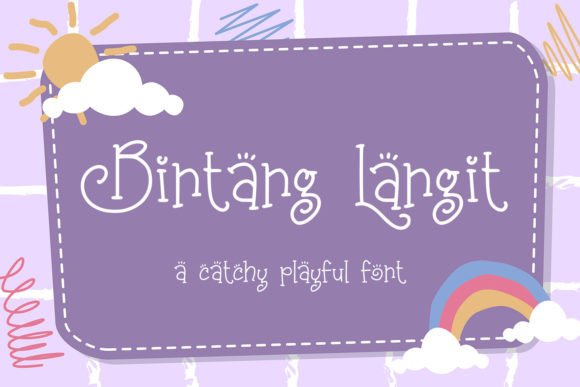
The Magical World of Bintang Langit Font
Have you ever been in the middle of a design project, and suddenly, you’re stuck on finding the perfect font? I certainly have! It was a sunny Saturday morning when I received a client’s request to create a whimsical birthday party invitation. I knew exactly what I wanted to achieve – a design that exuded joy and playfulness. However, my font library was being uncooperative. That’s when I stumbled upon the enchanting Bintang Langit Font. ✨
An Honest Review of Bintang Langit Font
- ✨ Sweet and Friendly: Bintang Langit Font is a beautifully crafted handwritten font that radiates warmth and friendliness. Its whimsical swirly characters are perfect for adding an extra touch of cheerfulness to any design.
- ✅ Versatile: This font is incredibly versatile and can be used for a wide range of design projects, from party invitations and greeting cards to branding and packaging.
- 🎉 Unique: The font’s distinctive swirly characters will make your design stand out from the crowd and leave a lasting impression on your audience.
While Bintang Langit Font is an amazing font, there are a few minor quirks to be aware of: 🤔
- ⚠️ Limited use in formal designs: Due to its playful nature, Bintang Langit Font may not be the best choice for formal designs, such as business logos or corporate branding.
- ⚠️ Some characters may require manual adjustment: As with any font, some characters may require manual adjustment to achieve the perfect kerning and spacing.
The Backstory of Bintang Langit Font
Bintang Langit Font was designed by a talented font designer who’s passionate about creating unique and creative typefaces. The designer’s inspiration for Bintang Langit Font came from the beauty of the night sky and the twinkling stars that sparkle like diamonds. The result is a font that’s both magical and whimsical, perfect for designs that require a touch of wonder and enchantment.
Q: What is Bintang Langit Font?
A: Bintang Langit Font is a sweet and extremely friendly handwritten font with whimsical swirly characters. It’s perfect for adding an extra touch of cheerfulness and joy to any design.
Q: What type of designs is Bintang Langit Font best suited for?
A: Bintang Langit Font is versatile and can be used for a wide range of design projects, from party invitations and greeting cards to branding and packaging.